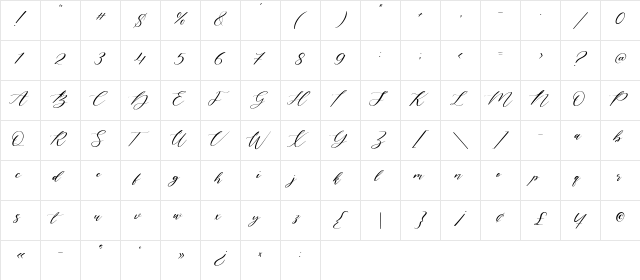
Lavineta Eisley Regular
| Designer | Balpirick Studio |
Design Context for Lavineta Eisley Typeface
Lavineta Eisley is a composed and adaptable typeface that performs quietly and consistently across a wide range of design contexts.